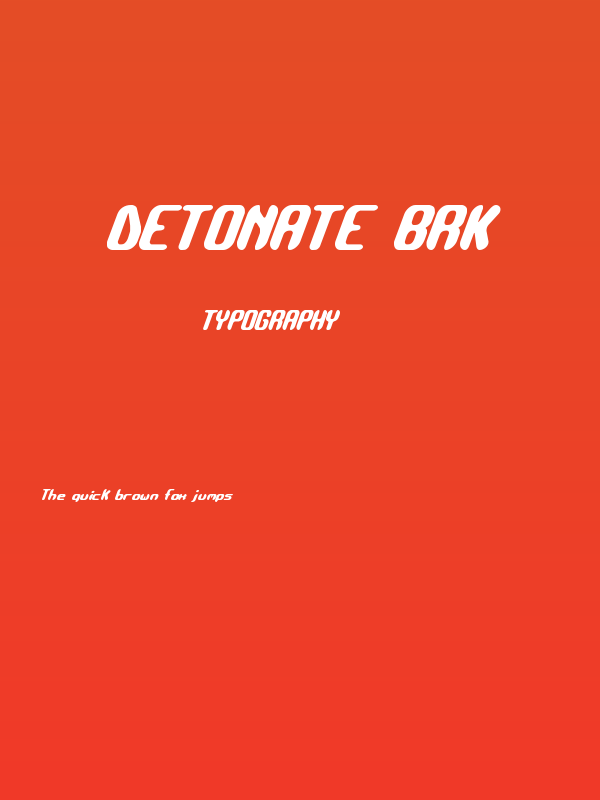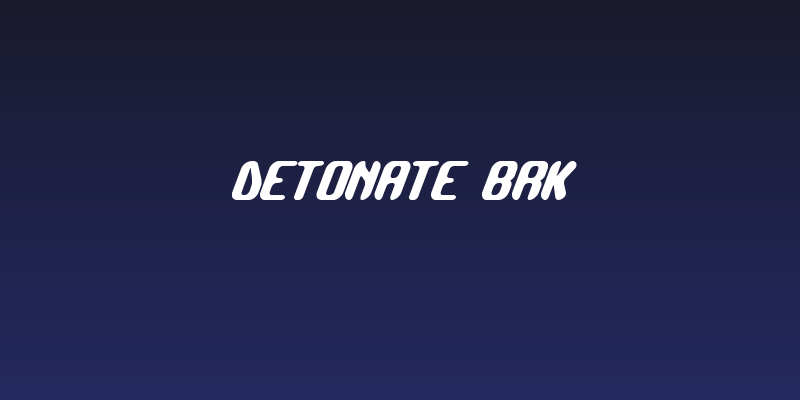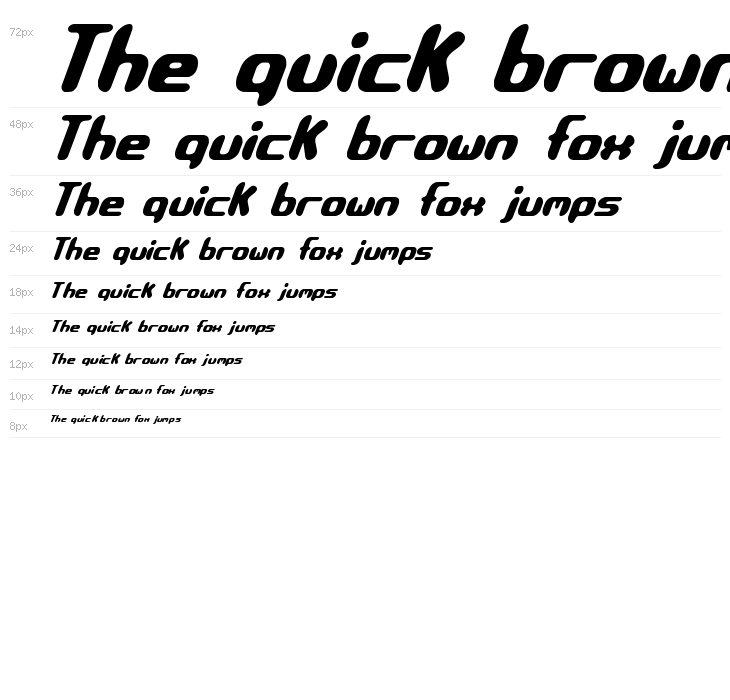
Detonate BRK Font
Detonate BRK Description
This font features a bold and dynamic style with a strong presence. The characters are slightly slanted, giving a sense of motion and energy. The strokes are thick and rounded, creating a robust and impactful appearance. The uppercase and lowercase letters maintain a consistent style, with smooth curves and sharp angles. The numbers and special characters are designed to match the overall aesthetic, ensuring uniformity across all glyphs. This font's unique style makes it suitable for projects that require a bold and energetic look.
| Proposed Projects | Ideal for sports branding, action-themed posters, dynamic logos, and eye-catching headlines. |